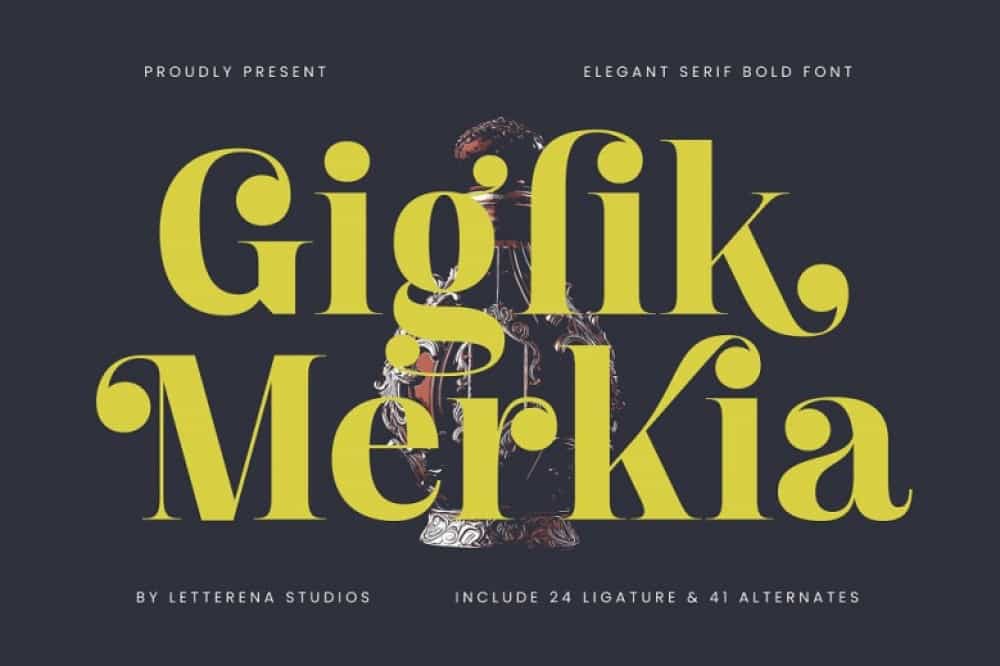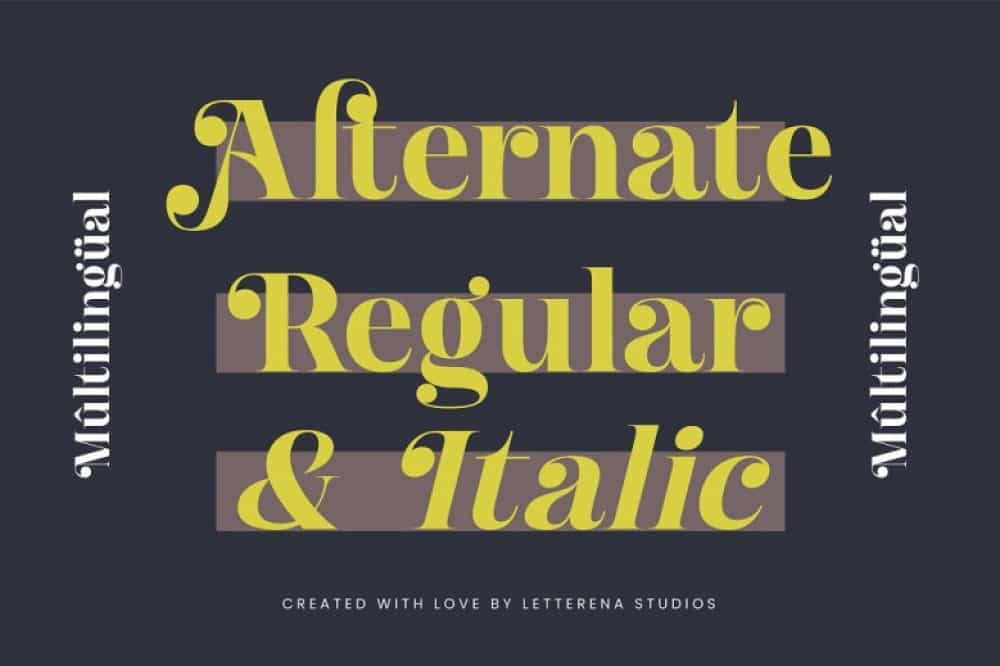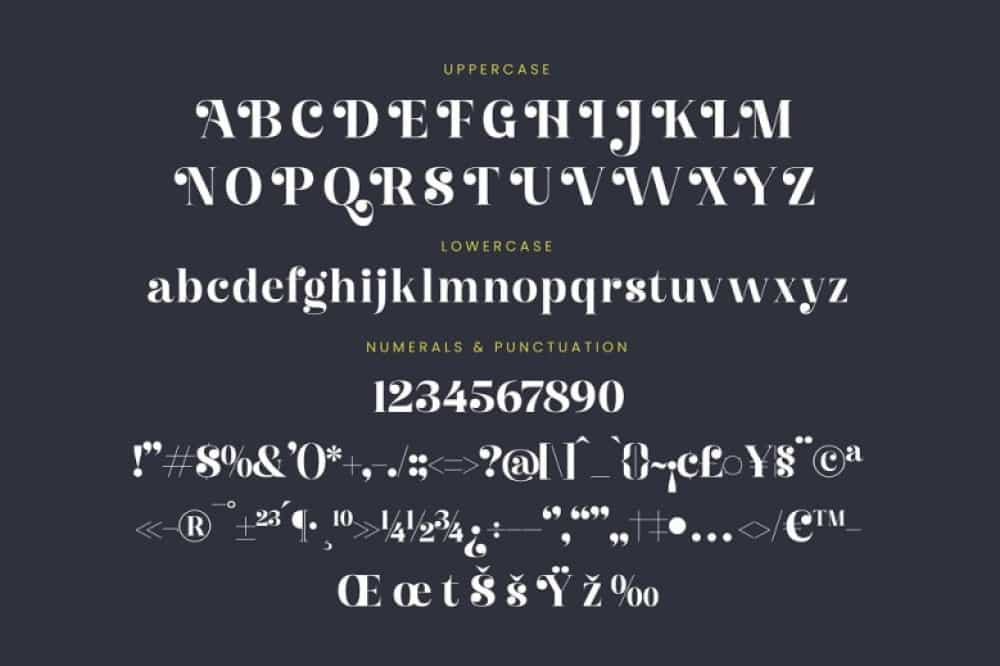
Discover Giglik Merkia Font, part of the Serif collection—a versatile and unique font perfect for adding a personal touch to your projects. Download it for free and enjoy crafting designs with style, from invitations to social media posts. This font is available exclusively for personal use, giving you the freedom to create without limits. Unlock your creativity with Giglik Merkia Font today!
Giglik Merkia is an elegant serif bold font, from Letterena, It’s suitable for any projects such as: logos, branding projects, homeware designs, product packaging, mugs, quotes, posters, shopping bags, t-shirts, book covers, name card, invitation cards, greeting cards, label, photography, watermark, special events and all your other luxury and beautiful projects that call for a touch of the Luxury Serif.